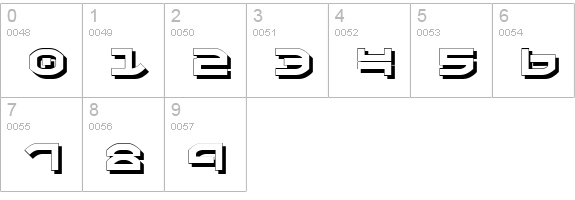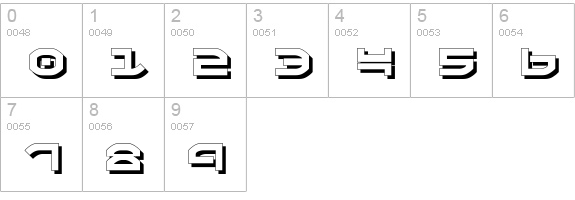
The Oberon Shadow font is a stunning and elegant typeface that exudes sophistication and style. With its unique shadowed effect, this font adds depth and dimension to any design project, making it stand out from the rest. The sleek and modern aesthetic of Oberon Shadow makes it perfect for a wide range of applications, from branding and advertising to invitations and web design. What's even better is that Oberon Shadow is completely free to download at FontsMarket.com. This means you can enjoy using this beautiful font without any cost, making it a valuable addition to your font collection. Don't miss out on the opportunity to enhance your designs with the striking beauty of Oberon Shadow - download it for free today!